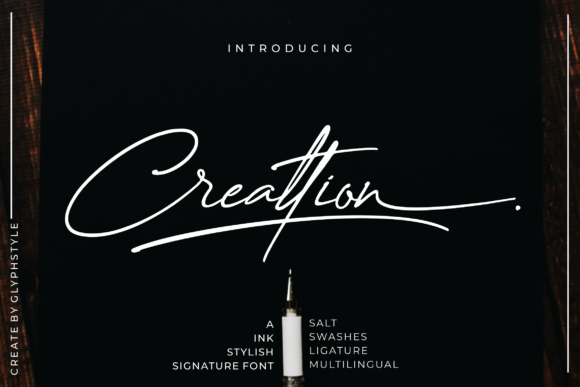
Unleash the Elegance with Creattion Font: The Timeless Masterpiece for Designers
In a world where first impressions matter, Creattion Font emerges as the ultimate weapon in your creative arsenal, ready to transform your designs into masterpieces that captivate and inspire. Experience the allure of a classic calligraphy font, meticulously crafted to infuse your projects with a timeless elegance that speaks volumes.
With Creattion, every word you write becomes a work of art, effortlessly conveying a sense of sophistication and charm. Its graceful curves and sweeping strokes evoke a bygone era, adding a touch of nostalgia and romance to your designs. Whether you're creating a captivating logo, an enchanting invitation, or a heartfelt greeting card, Creattion Font is your perfect companion, guiding you towards design excellence.
Step into a world of endless possibilities, where Creattion Font becomes your muse, igniting your creativity and propelling you to new heights. From elegant wedding invitations that leave a lasting impression to eye-catching social media posts that demand attention, Creattion Font is your secret weapon, transforming ordinary designs into extraordinary experiences.
Banish the mundane and embrace the exceptional. With Creattion Font, you hold the key to unlocking a world of elegance and timeless beauty. Let your designs radiate with an unmatched charm, captivating your audience and leaving them spellbound.